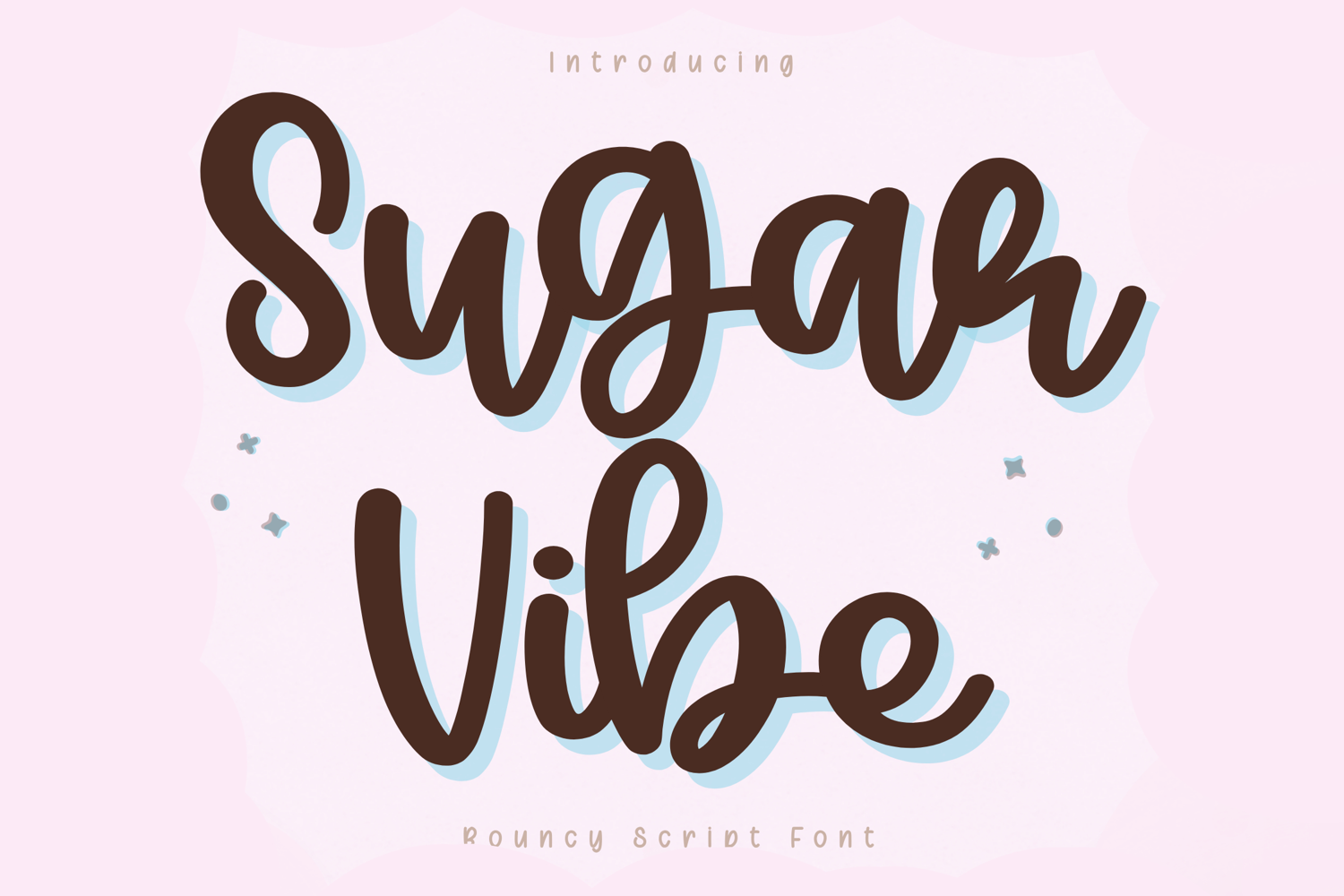
Sugar Vibe - Handwritten Script Font
Sugar Vibe – Bouncy Script Font
Sugar Vibe is a playful and bouncy script font designed to bring a fun and energetic feel to your creative projects. With its smooth curves and lively letterforms, this font creates a natural handwritten look while maintaining clarity and readability.
Carefully crafted for versatility, Sugar Vibe performs beautifully across a wide range of applications—from Cricut cutting projects to digital planners, stickers, branding, and social media design. Its smooth and consistent strokes ensure clean results for both writing and cutting, making it perfect for everyday creative use.
Sugar Vibe is designed with smooth, rounded, and slightly bouncy strokes, making it easy to use for both beginners and professional designers.